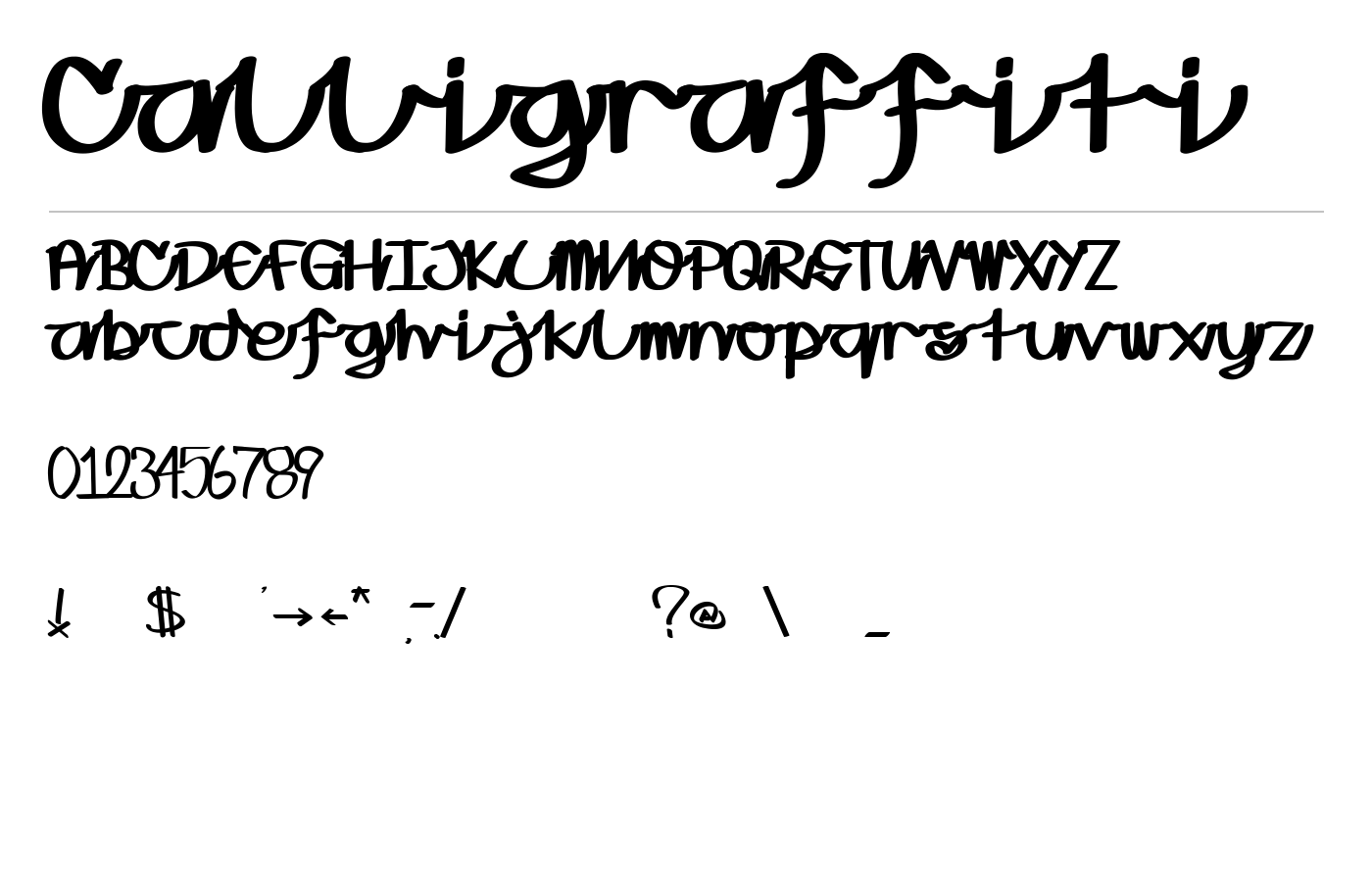
Calligraffiti is a bold, expressive script font that combines the fluidity of calligraphy with an urban graffiti style. Its playful, uneven letterforms and strong weight give it a dynamic, artistic feel perfect for creative designs, streetwear branding, and eye-catching headlines. This font works best in projects that want to convey originality and an edgy, modern vibe.
Calligraffiti Font
About Calligraffiti Font